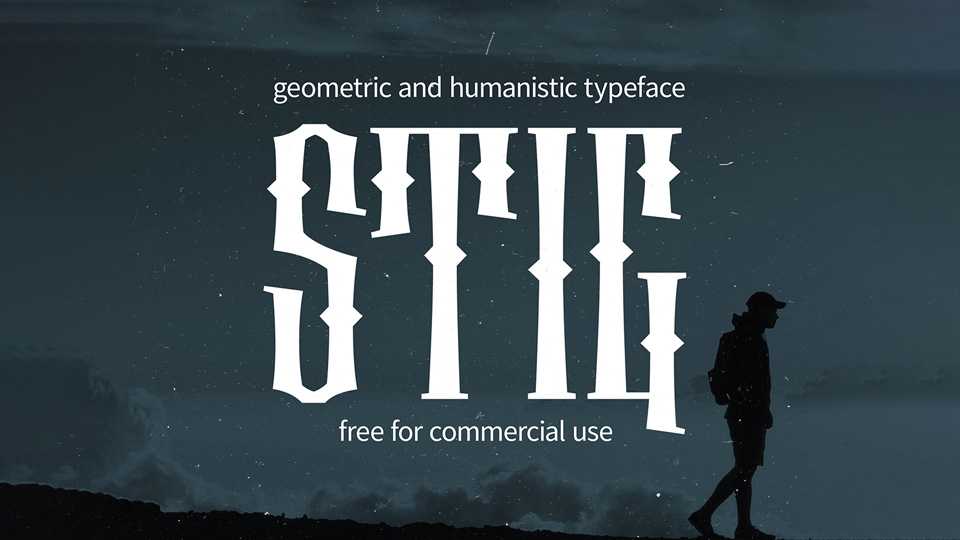
Download Stig font, decorative display typeface inspired by brutal tattoos and album covers of morose rappers. Stig is an eclectic of styles and is not intended for large amounts of text.
Designer: Anosov Vladimir